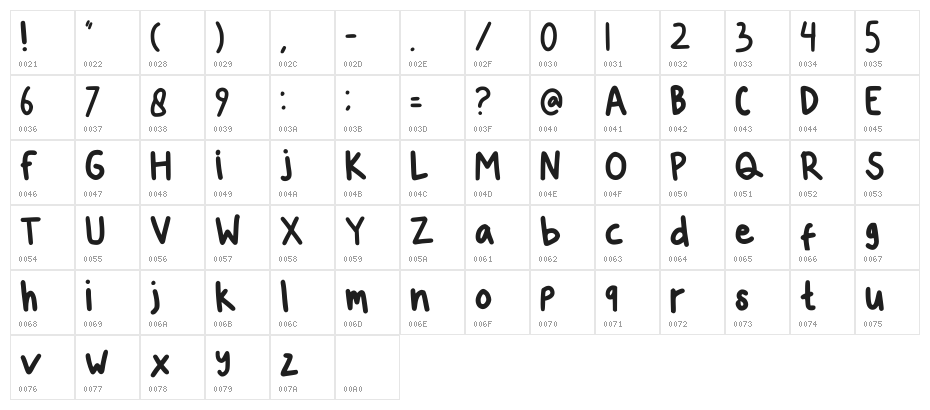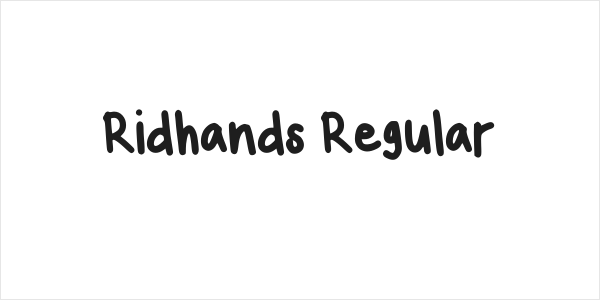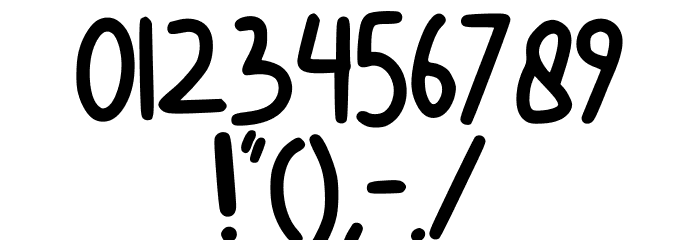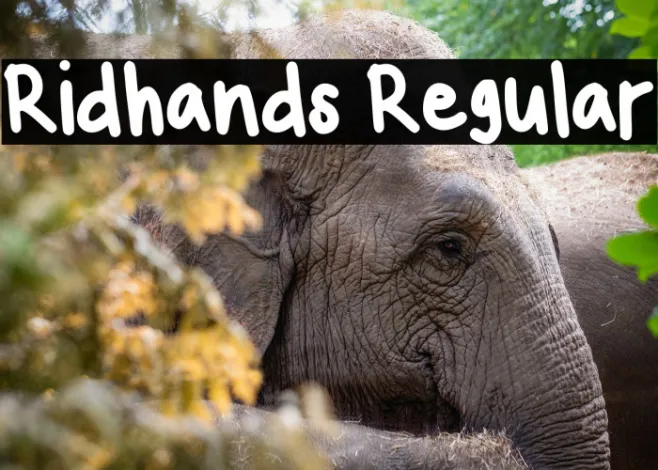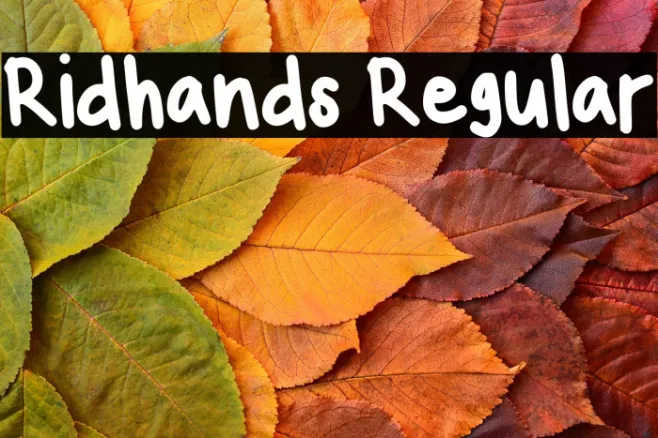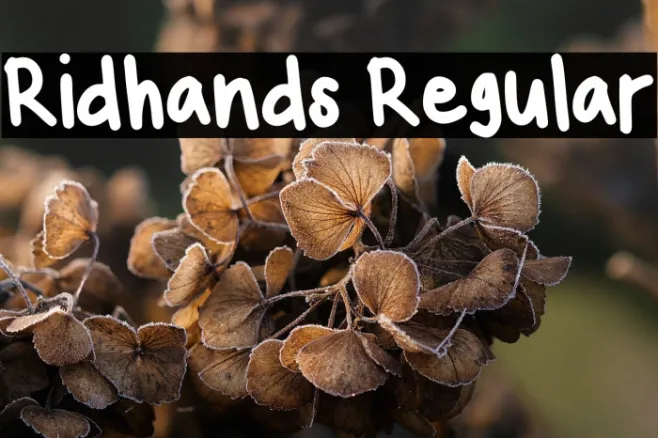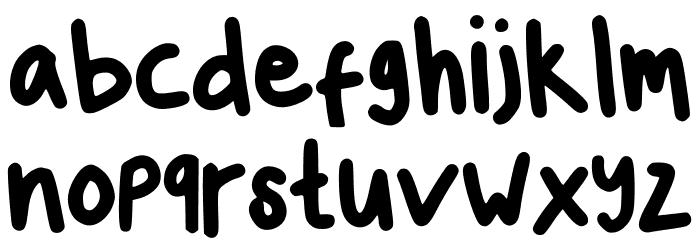
Ridhands Regular Font
Ridhands Regular Description
This playful and informal font features a handwritten style with rounded edges and a casual appearance. The characters are bold and slightly irregular, giving a friendly and approachable feel. The uppercase and lowercase letters maintain a consistent style, with a slight slant that adds to the dynamic look. Numbers and special characters are designed to match the overall aesthetic, ensuring a cohesive appearance across all text. The font's unique personality makes it suitable for creative projects that require a touch of whimsy and charm.
| Proposed Projects | Ideal for children's books, greeting cards, playful branding, and informal invitations. |